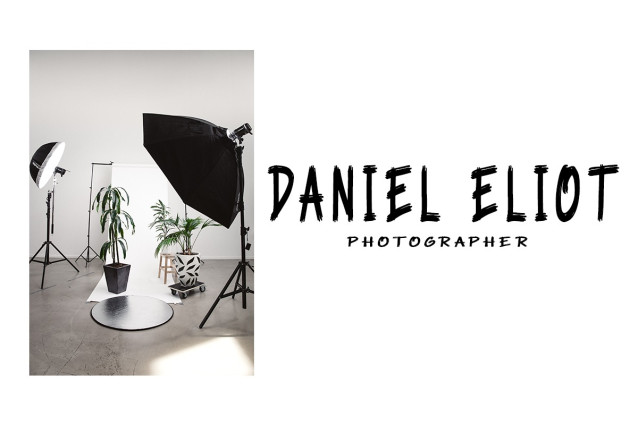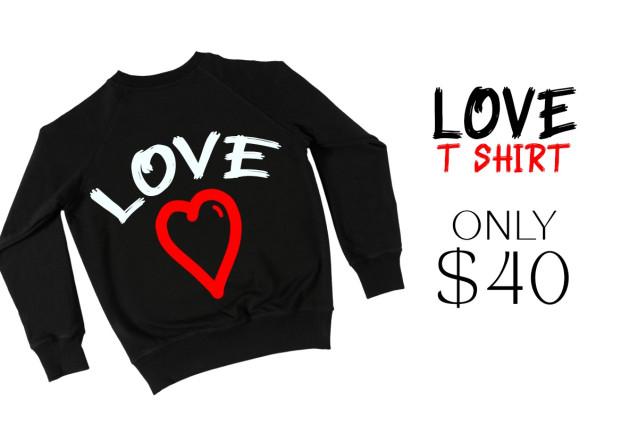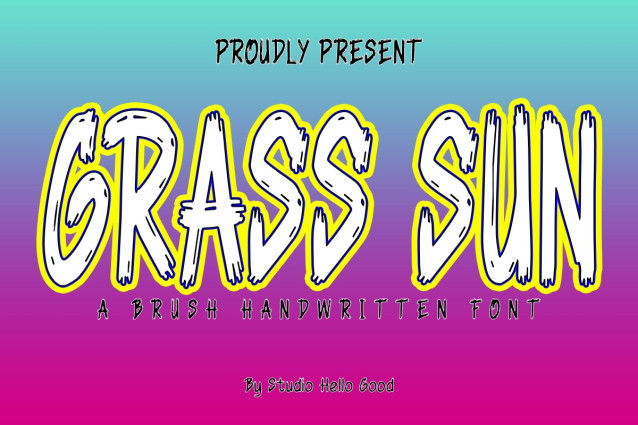
Grass Sun Font
Grass Sun Font – a warm and inviting handwritten brush font that radiates charm and personality. With its fluid strokes and organic feel, GRASS SUN adds a touch of handmade authenticity to any project.
This delightful font captures the essence of carefree creativity, as if each letter were lovingly crafted with a paintbrush on a sunny afternoon. The brush strokes flow effortlessly, creating a sense of movement and energy that breathes life into every word.
GRASS SUN‘s playful yet refined style makes it a perfect choice for a variety of applications. Whether you’re designing greeting cards, invitations, posters, or branding materials, this font adds a unique touch of character and warmth.
Each letter is meticulously crafted to maintain a balance between legibility and artistic flair, ensuring that your message shines through while still retaining the handwritten charm of the font.
With its sunny disposition and versatile design, GRASS SUN is sure to brighten up any project and leave a lasting impression on your audience. Embrace the warmth and vibrancy of this delightful handwritten brush font, and let your creativity shine!